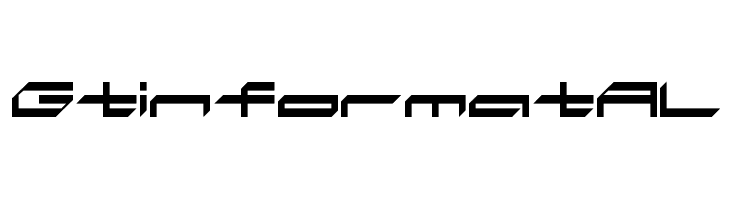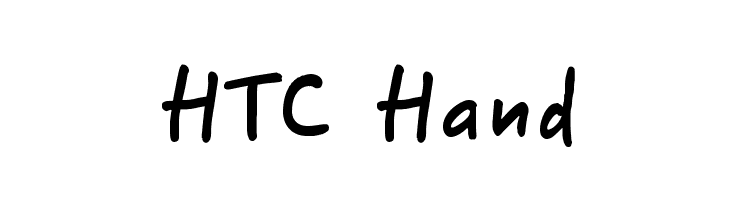
A playful, handwritten font with a casual and friendly appearance.
A modern, geometric font with a tall and narrow design.
A classic serif font inspired by Roman inscriptions, exuding elegance and authority.
A geometric, minimalist font with a futuristic and angular design.
A playful, bold font with rounded, hand-drawn characters.
A playful, handwritten font with uneven strokes and a casual style.
A playful, bold font with rounded, bubbly characters ideal for fun projects.
A playful, bold font with rounded, hand-drawn characters.